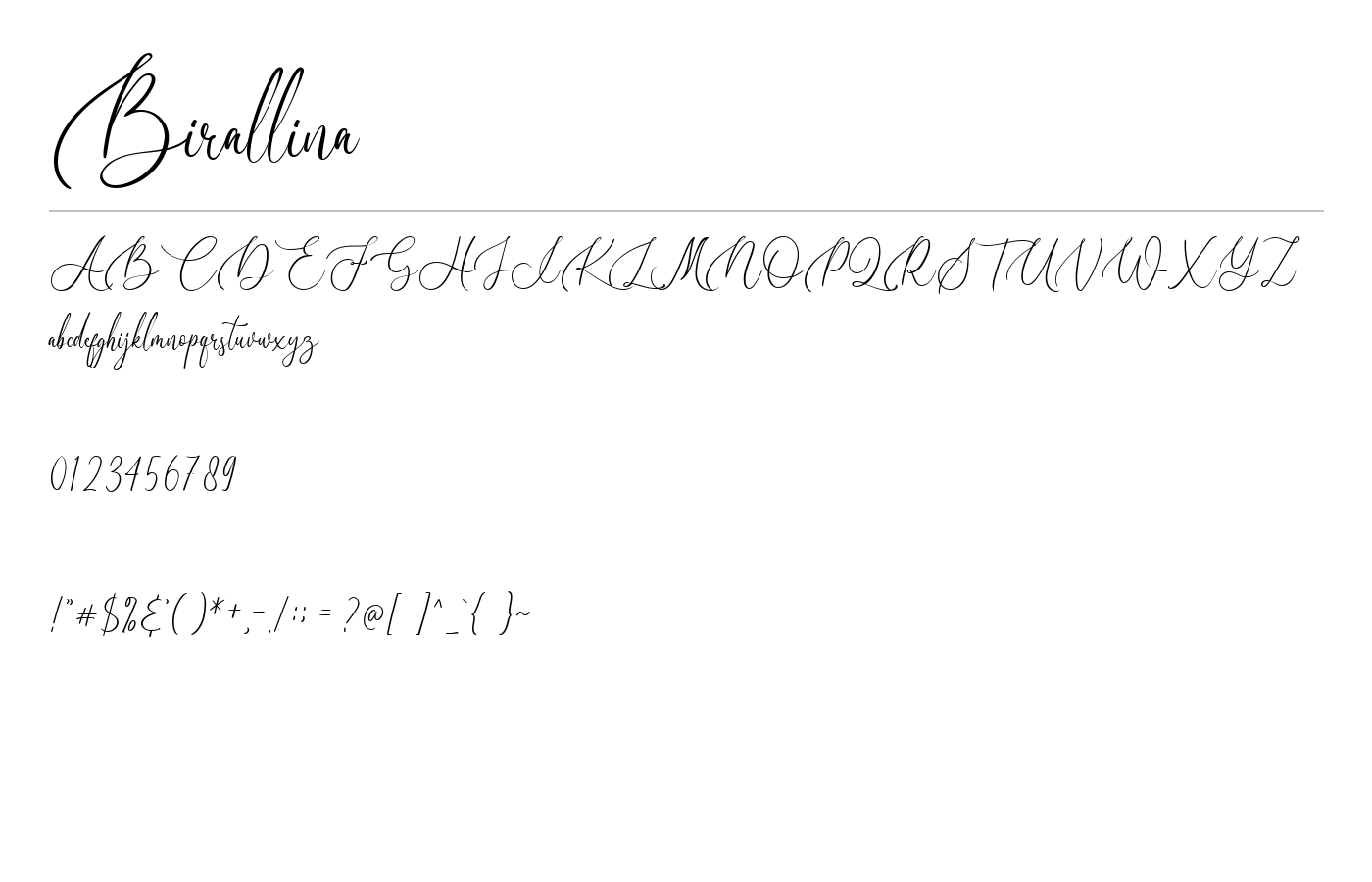
Birallina is an elegant, delicate script font featuring fine strokes and graceful, flowing letterforms that resemble sophisticated handwriting. Its high contrast and slender design make it perfect for luxury branding, wedding invitations, and stylish logos where a refined and personal touch is desired. This font excels in creating an airy, romantic feel, ideal for projects needing a blend of elegance and softness.
Birallina Font
About Birallina Font